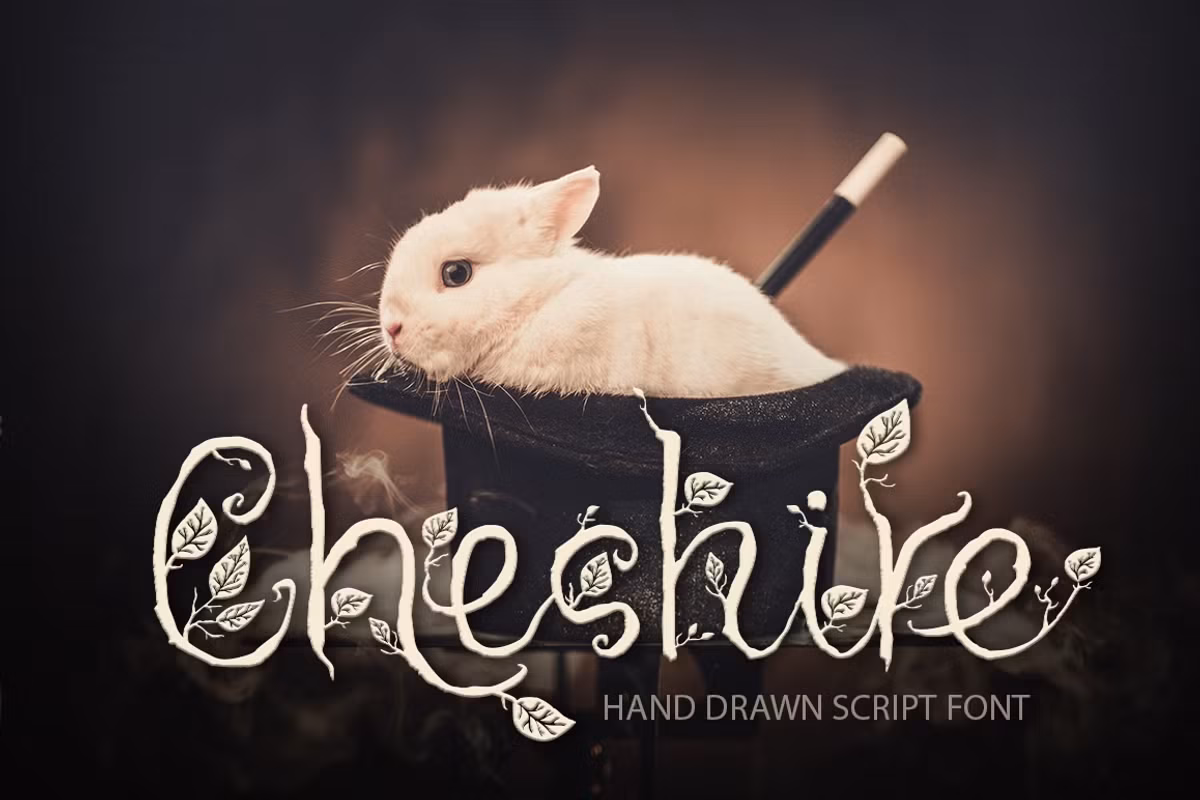
Cheshire – Magic Script Font Free Download is a whimsical and enchanting script typeface that feels straight out of a fairytale. Perfect for fantasy-themed designs, book covers, invitations, and branding with a magical twist, this font brings elegance and imagination to every letter.
With flowing lines and spellbinding curves, Cheshire – Magic Script Font Free Download captures the essence of storytelling and wonder. Whether you’re designing for a mystical event, a boutique brand, or creative content that needs a touch of magic, Cheshire delivers visual charm and expressive flair. Try it in your next design mockup and experience its unique vibe—then upgrade to a commercial license when you're ready to make it official.